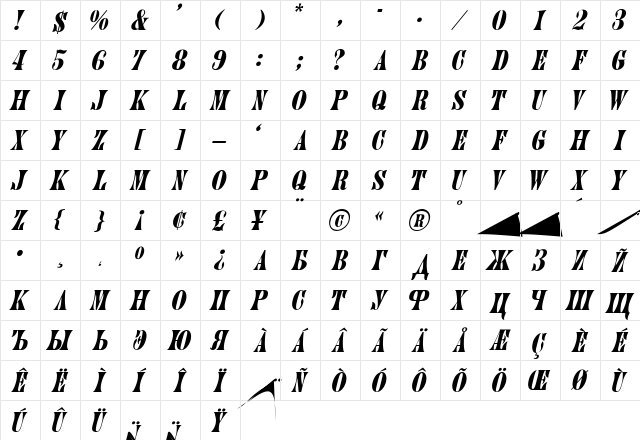
JupiterR Italic
Design Context for JupiterR Typeface
JupiterR offers clean, dependable letterforms without strong stylistic allegiance, making it a practical choice for designers who need flexibility. Its italic angle brings a sense of urgency and motion to the letterforms.
Pro Tip: Use JupiterR for emphasis, pull quotes, and subheadings where its slanted energy can add rhythm to the layout.